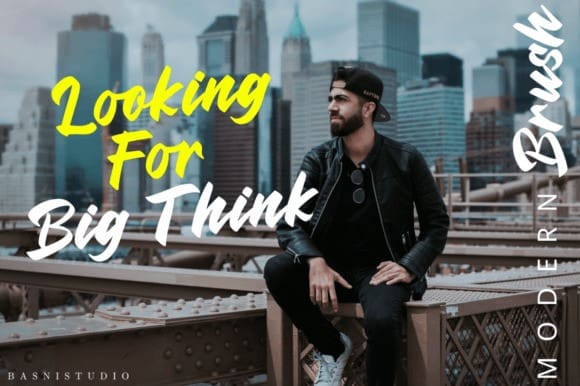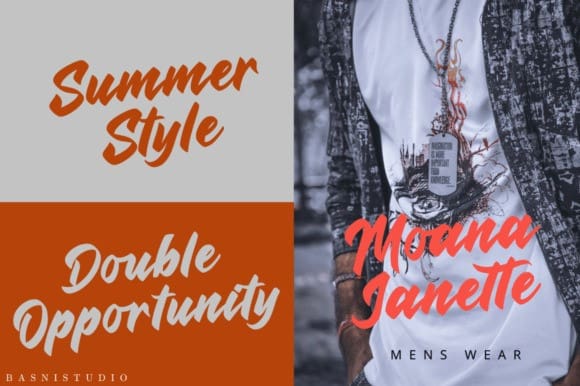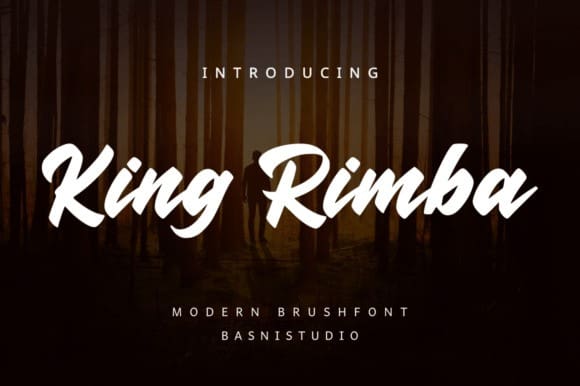
King Rimba Font
King Rimba Font – Modern Brush Font, made with natural brush and precision, is perfect for branding, websites, and editorial designs. Includes all Caps letters, multilingual support, punctuation, and binding.